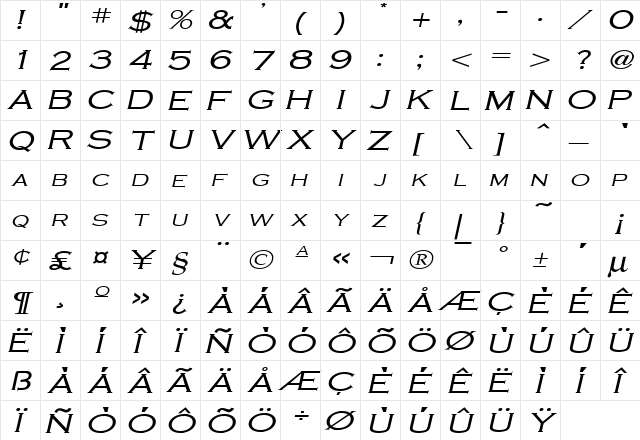
Cobalt Wide Italic Font Preview
Cobalt Wide Italic
Design Context for Cobalt Wide Typeface
Cobalt Wide takes a measured approach to typography — its balanced proportions and neutral character make it a reliable workhorse for both digital and print work. Its italic angle brings a sense of urgency and motion to the letterforms.
Pro Tip: Use Cobalt Wide for emphasis, pull quotes, and subheadings where its slanted energy can add rhythm to the layout.